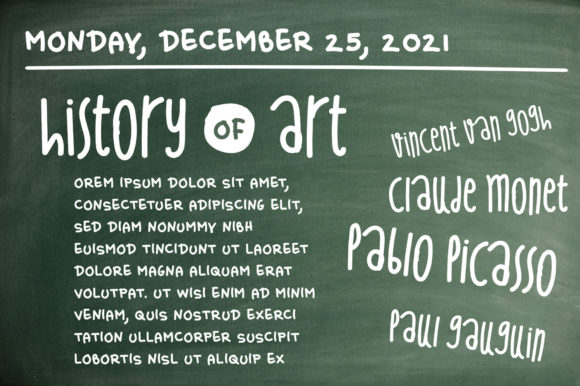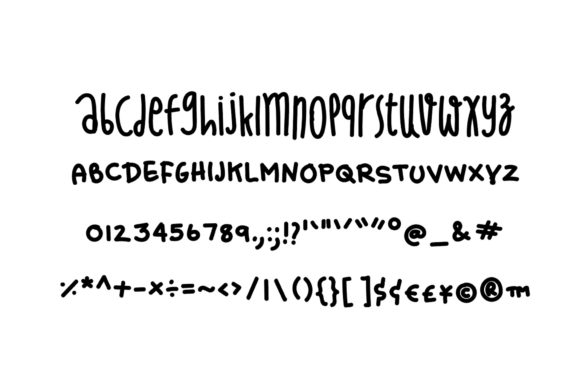
Introduction to Reverse Osmosis Font
Have you ever been in the midst of a creative project, struggling to find the perfect font to bring your vision to life? The blank page stares back at you, a constant reminder that the right design element can make all the difference. That’s where the Reverse Osmosis Font comes in – a game-changing addition to any designer’s toolkit.
With its natural, handwritten style and unique flair, the Reverse Osmosis Font is the perfect design resource for anyone looking to add a touch of personality to their work. Whether you’re working on a high-quality brochure, a creative website, or a simple social media graphic, this versatile font is sure to impress.
Key Features of Reverse Osmosis Font
- Features a transparent background, making it perfect for designing with
- Includes a range of glyphs and characters for versatile use
- Unique characteristics: modern, minimalist aesthetic with a touch of elegance
Honest Review: Reverse Osmosis Font
As a designer, I’m always on the lookout for unique and high-quality design resources to elevate my creative projects. The Reverse Osmosis Font caught my eye with its intriguing name and sleek design. Let’s dive into the details.
- ✨ High-quality design with crisp lines and clean typography.
- ✨ Transparent background, making it easy to use in various design scenarios.
- ⚠️ Limited font sizes and styles, which may not be suitable for all design needs.
- ⚠️ Some users may find the font too minimalist, lacking in character or personality.
Overall, the Reverse Osmosis Font is a solid addition to any designer’s toolkit. While it may not be perfect, its clean design and free download make it a great resource for creative projects. I’d definitely recommend it for designers looking for a simple, high-quality font.
The Reverse Osmosis Font is a high-quality, free design resource ideal for creative projects. This versatile font features a transparent background, making it perfect for overlaying on images or videos.
For optimal results, use the Reverse Osmosis Font on a high-contrast background to ensure readability. Experiment with different font sizes and styles to achieve the desired effect.
The Reverse Osmosis Font is perfect for:
- Creating visually appealing title slides in presentations.
- Adding a touch of elegance to digital designs.
- Overlaying text on images or videos for a unique effect.